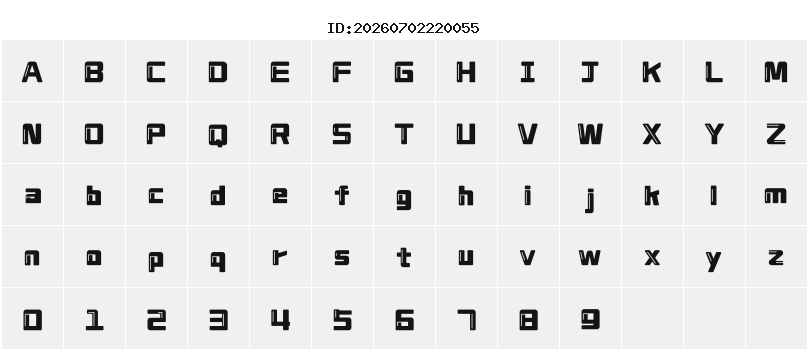
145-上首高光体 Preview
• Font Name: 145-上首高光体
• Full Font Name: 145-上首高光体
About 145-上首高光体.ttf
145-上首高光体.ttf is a modern, elegant sans-serif font designed for ultimate readability and visual harmony. Perfect for branding, headlines, web design, and print materials.